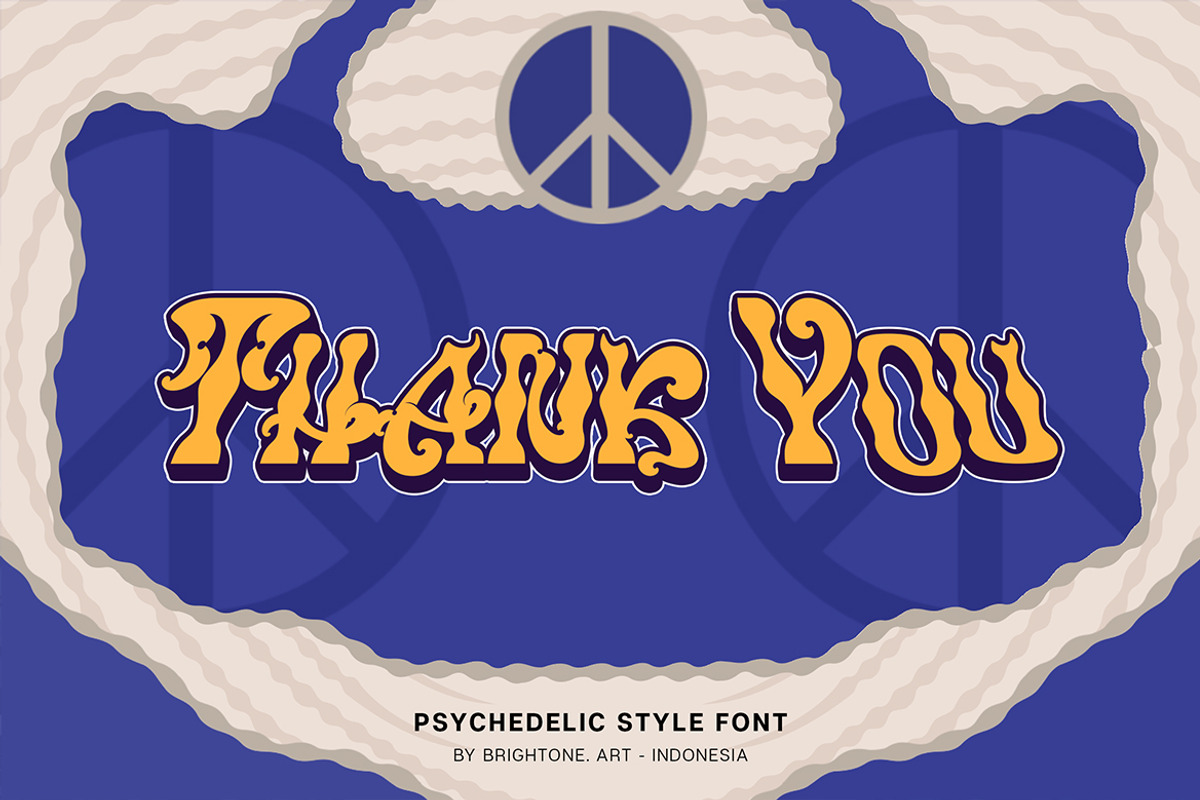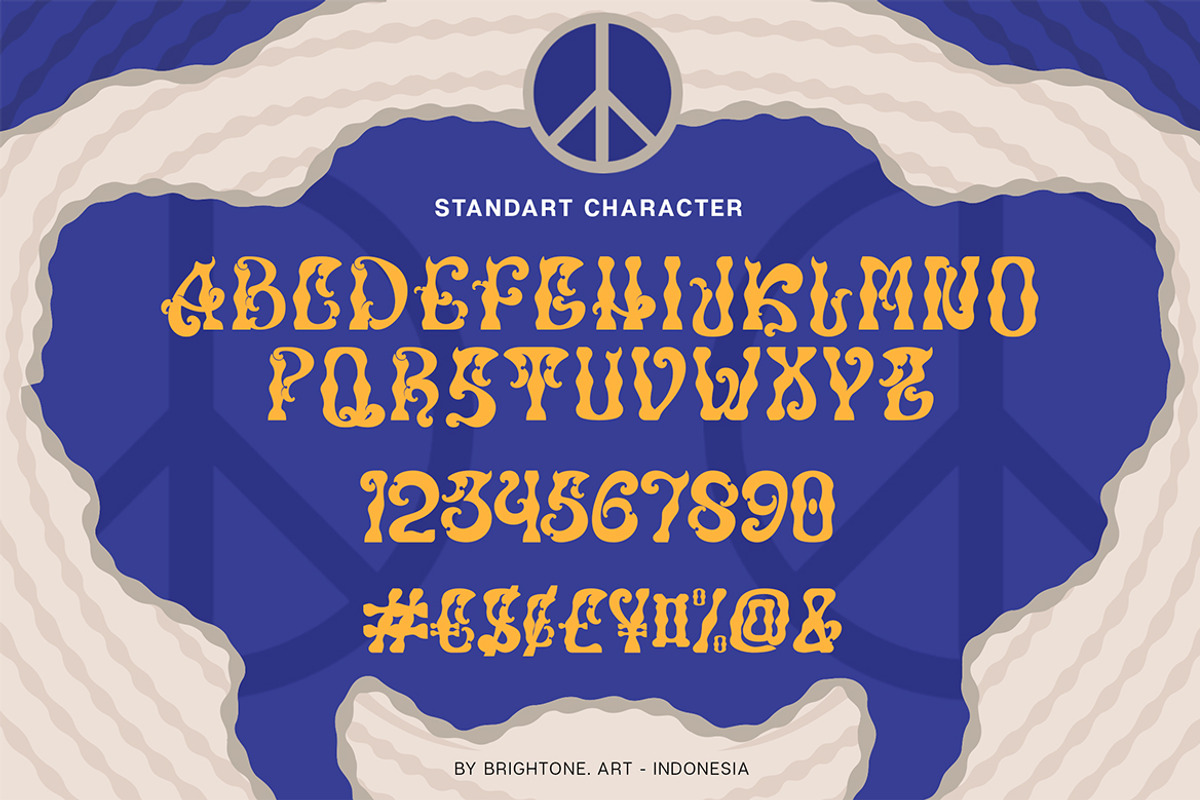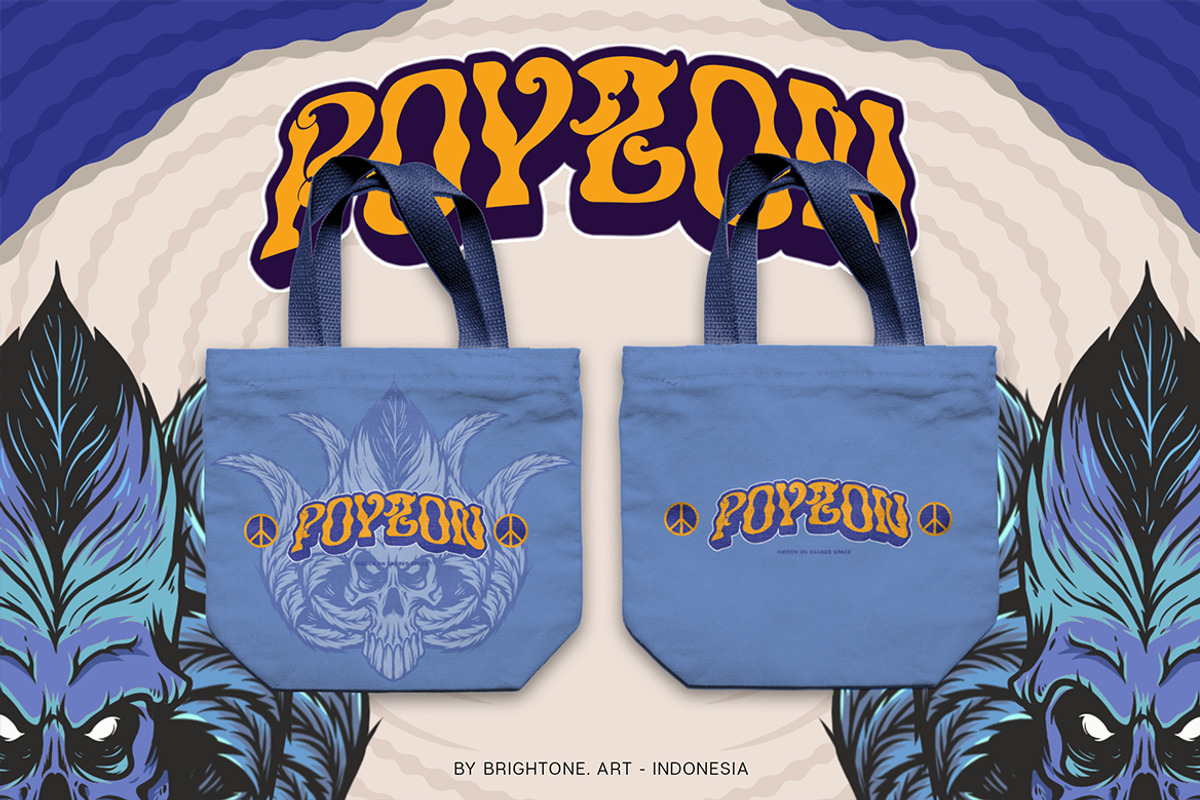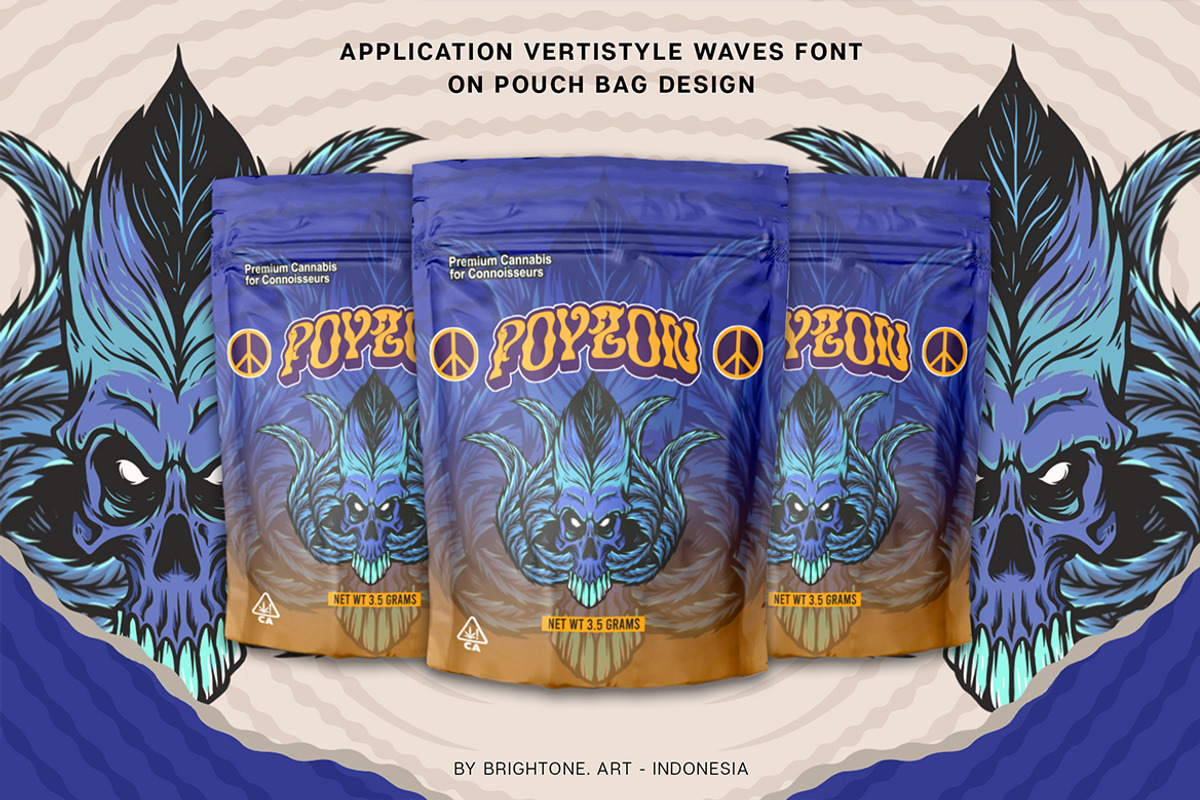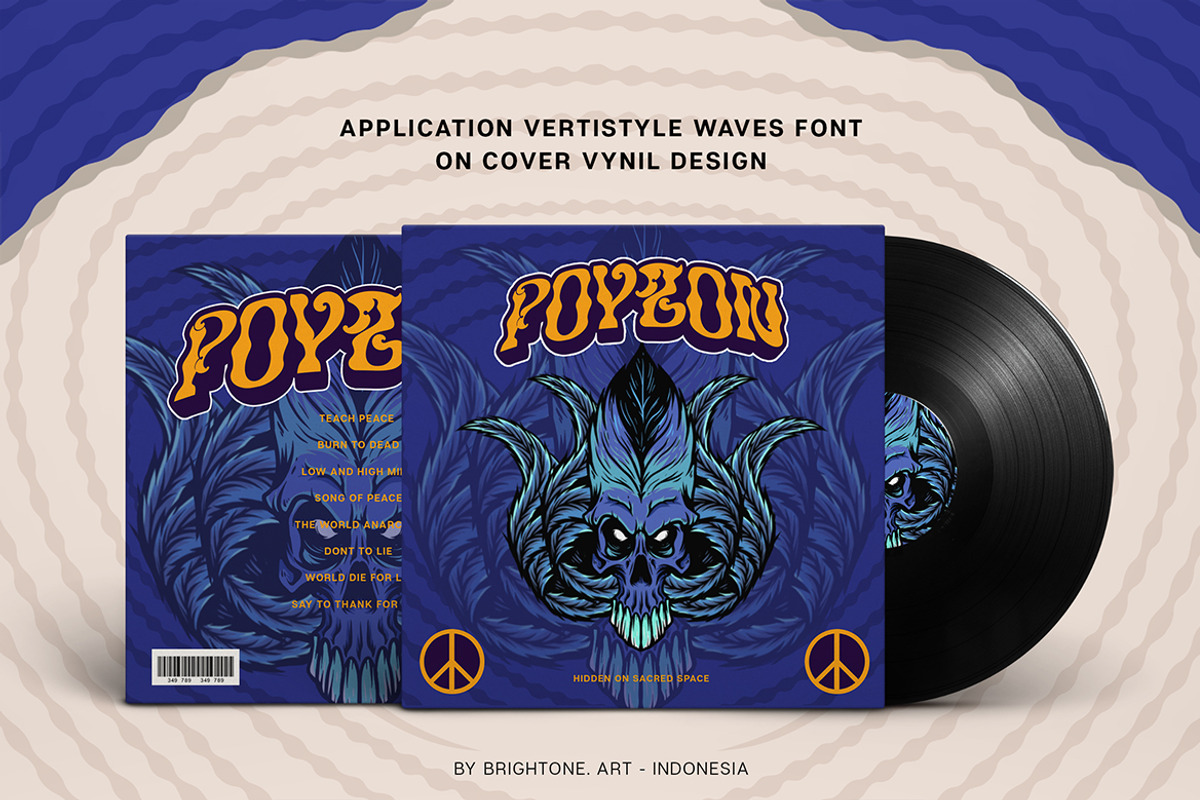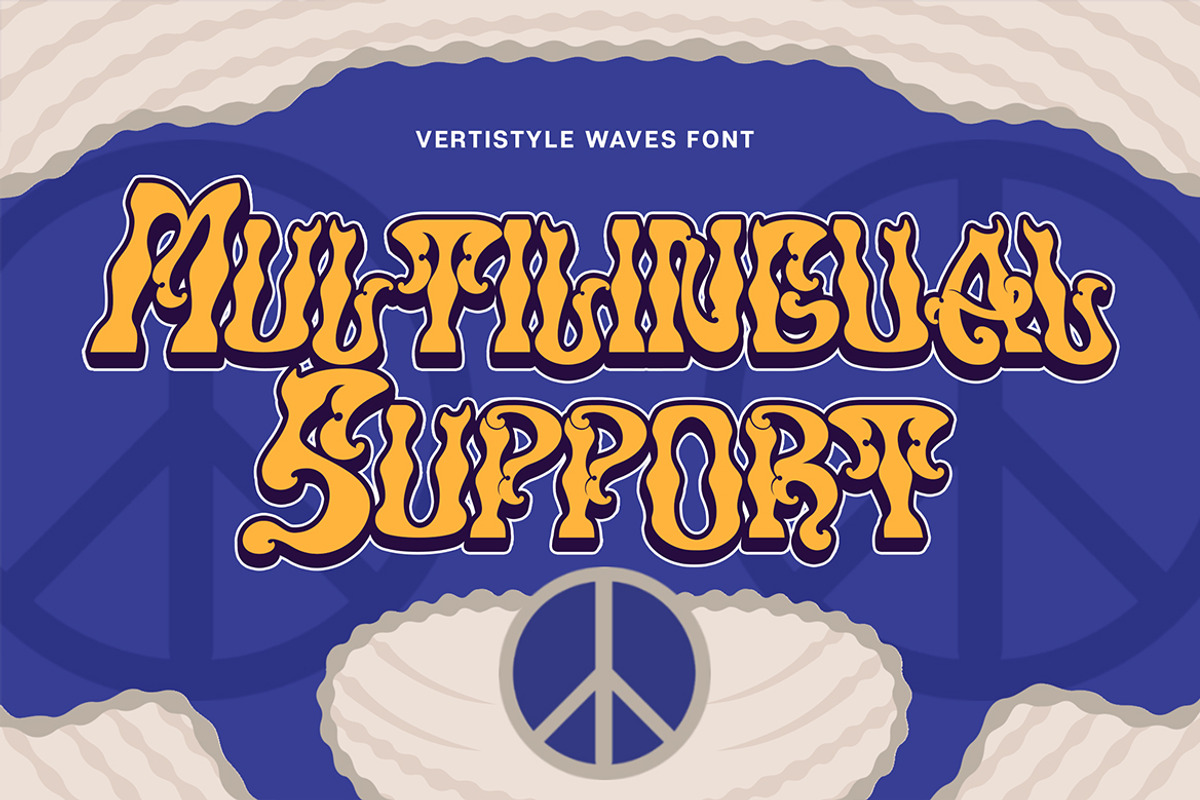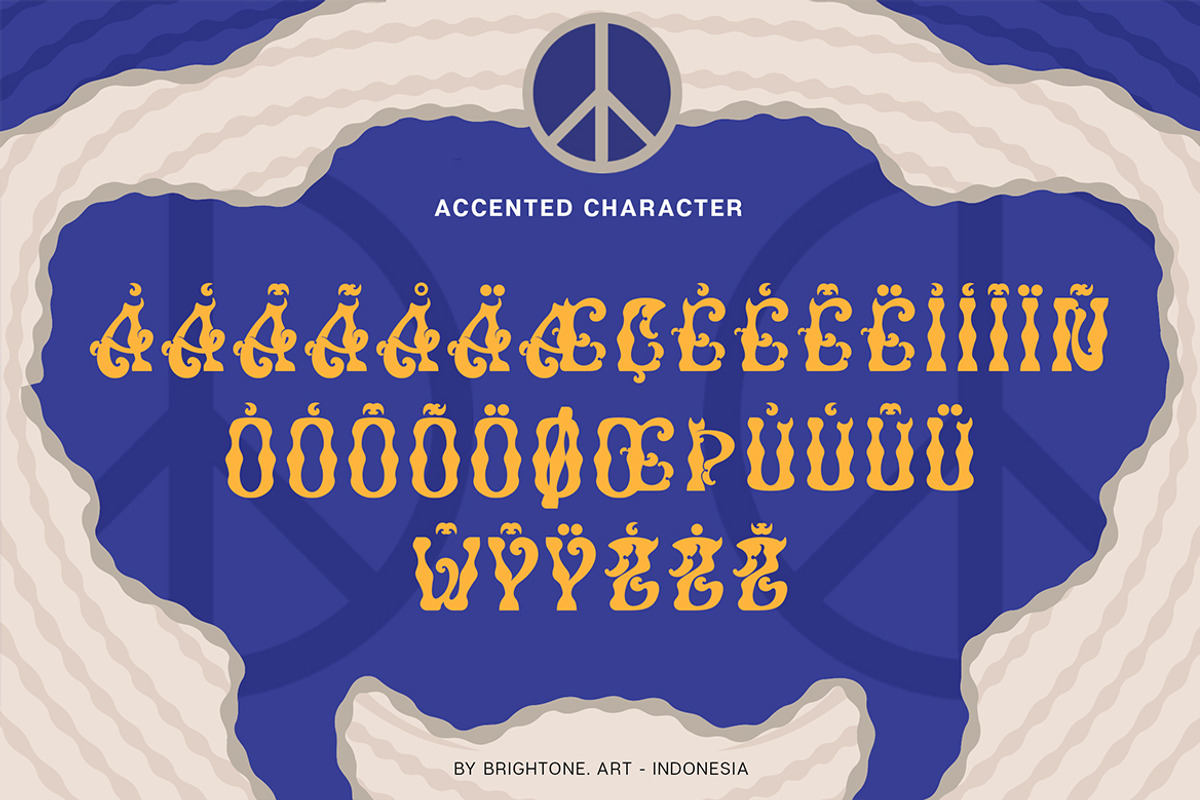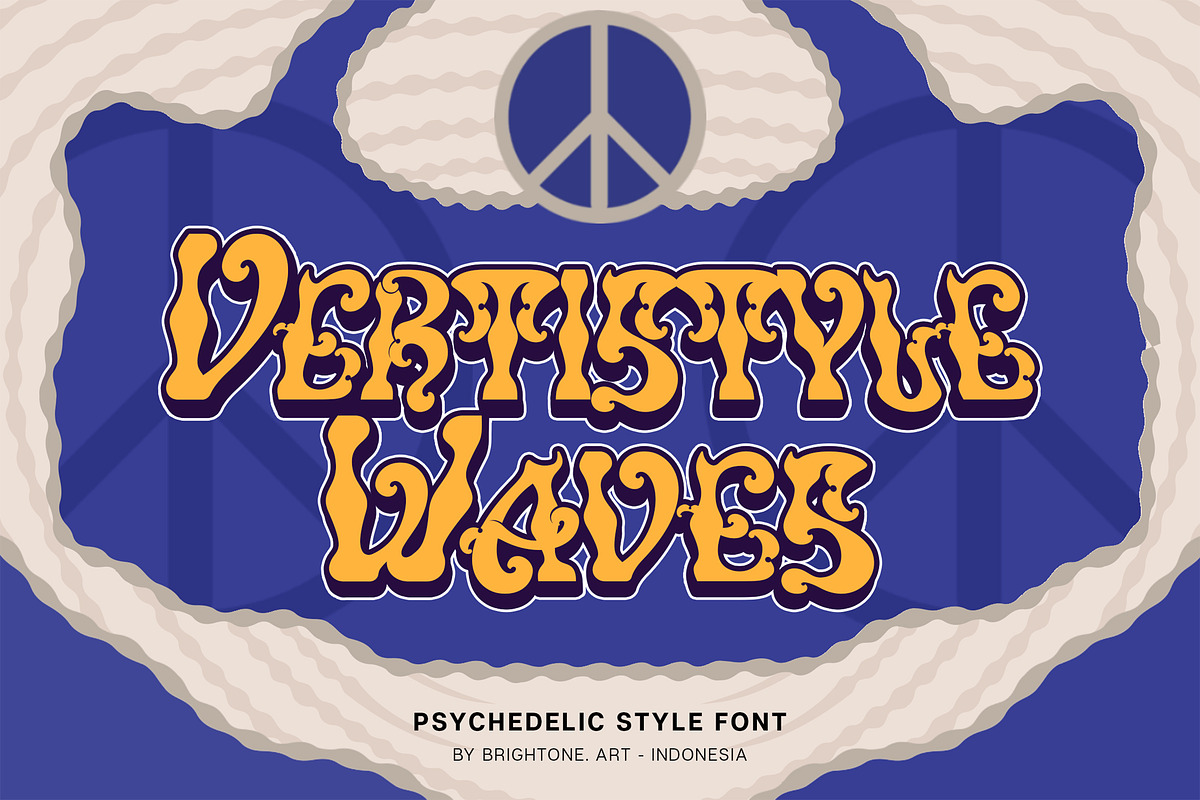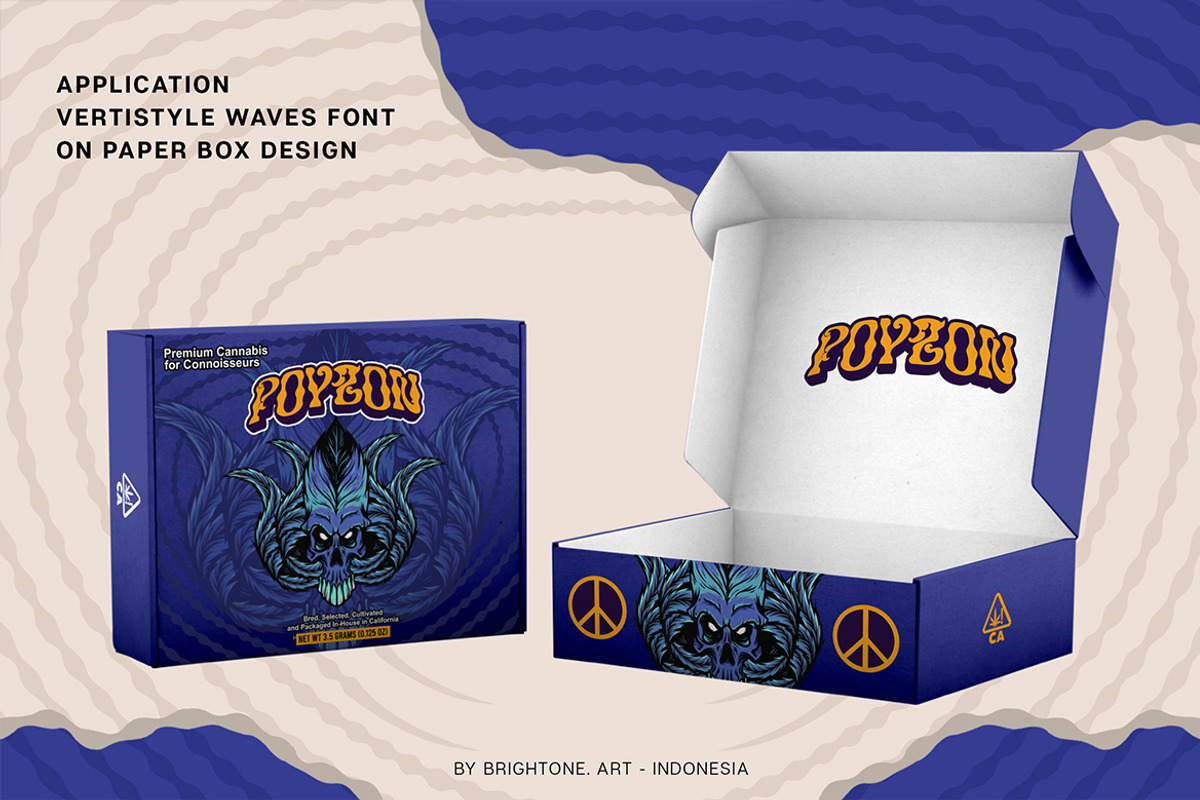
VERTISTYLE WAVES - Psychedelic Style
VERSITYLE WAVES is psychedelic font with classic hippie and carnival font, these font includes:
- Uppercase and Lowercase Characters, Numbers and Punctuation.
- Ligatures.
- Multilingual Support (Eastern, Central and Western European countries).
VERSITYLE WAVES font is suitable to use for all purpose for your logo lettering, logo, label, packaging, sticker, branding and many more.